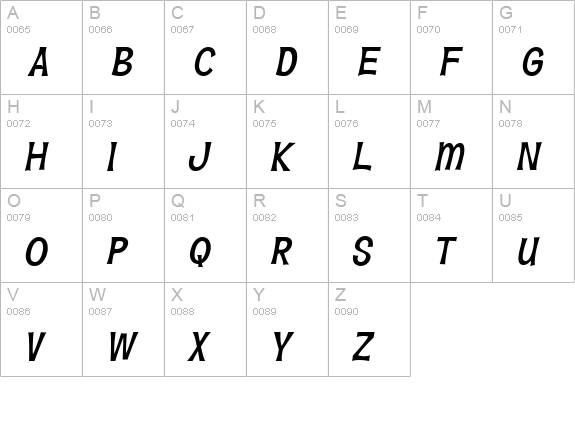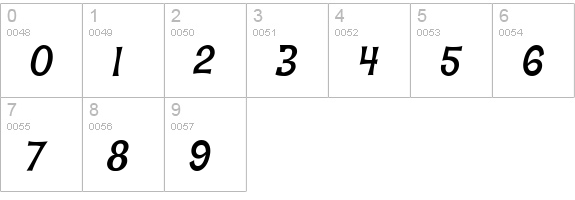
Hawaiian Aloha BTN Oblique Font Details
Hawaiian Aloha BTN Oblique is a distinctive, italic variant in the Hawaiian typeface family \xE2\x80\x94 well suited to design and typography projects.
The Hawaiian Aloha BTN Oblique font is a stunning display typeface that captures the essence of the beautiful Hawaiian islands. Its elegant and flowing design is reminiscent of the graceful dance of hula and the gentle sway of palm trees on sandy beaches. This font is perfect for adding a touch of tropical flair to your designs. Whether you're creating invitations for a Hawaiian luau, designing a travel brochure for a tropical getaway, or simply wanting to add a touch of paradise to your projects, the Hawaiian Aloha BTN Oblique font will instantly transport you to the sun-kissed shores of Hawaii. With its unique oblique style, this font adds a dynamic and modern twist to traditional Hawaiian-inspired typography. It effortlessly combines the classic elements of island culture with a contemporary edge, making it versatile for a wide range of design applications. And the best part? The Hawaiian Aloha BTN Oblique font is available for free download at FontsMarket.com. This means that you can easily access and use this stunning font in your projects without any cost. Simply visit FontsMarket.com, search for Hawaiian Aloha BTN Oblique, and start adding a touch of aloha to your designs. So why wait? Embrace the spirit of aloha with the Hawaiian Aloha BTN Oblique font, and let your creativity soar to new heights. Download it for free today and bring the tropical paradise of Hawaii to your designs.